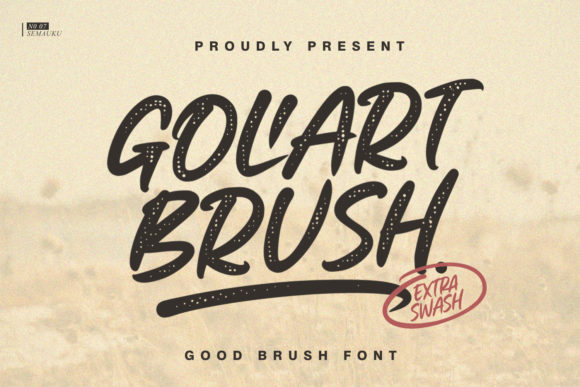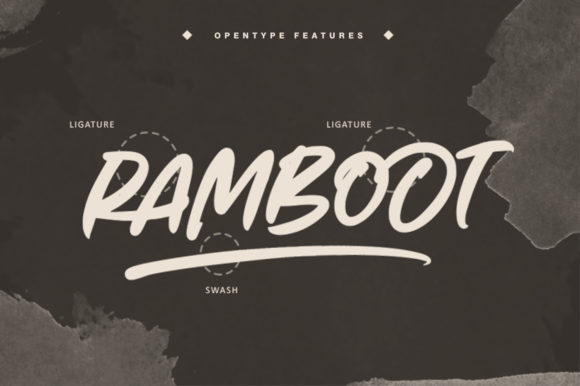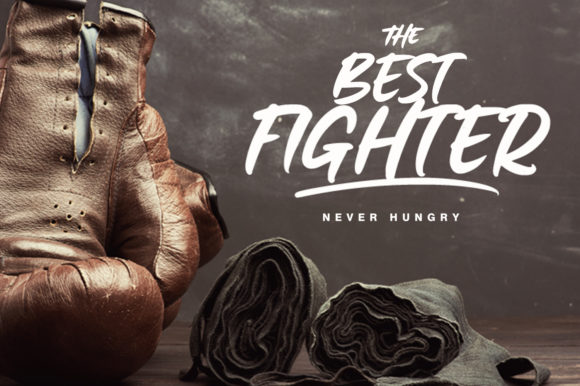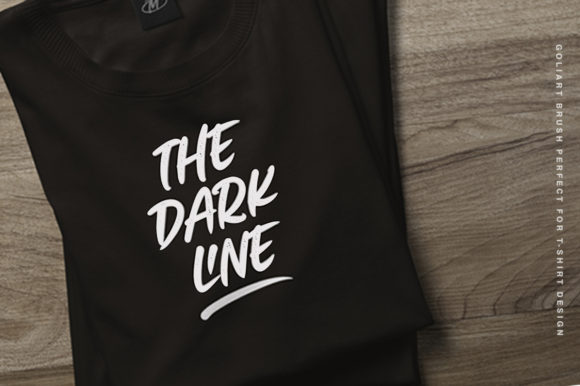
Goliart Brush Font
About the Goliart Brush Font
Meet Goliart Brush Font, a stunning font that brings a touch of elegance and professionalism to any design. Goliart Brush is a display style font with authentic hand-drawn strokes. This font is perfect for your adventure-themed design projects. In addition, Goliart Font is very suitable to be applied to clothing designs, merchandise, bags, posters, book covers, social media posts, video thumbnails and others.
Goliart Brush’s bold, expressive strokes make it ideal for headlines, short impactful quotes, and branding elements where a hand-crafted, adventurous feel is desired. It excels in posters, packaging for outdoorsy products, and social media graphics needing a strong visual punch. However, its highly textured nature makes it unsuitable for body text or UI elements requiring high legibility.
Pairing Goliart Brush with a clean sans-serif like Montserrat for body copy creates a balanced contrast; a geometric sans-serif such as Futura adds a modern edge. For a more rustic feel, consider pairing it with a complementary serif like Playfair Display.
Its core personality is energetic and adventurous, conveying a sense of freedom and approachability, making it perfect for brands targeting an active, nature-loving audience.
Goliart Brush Font Usage Examples
Goliart Brush Font Example